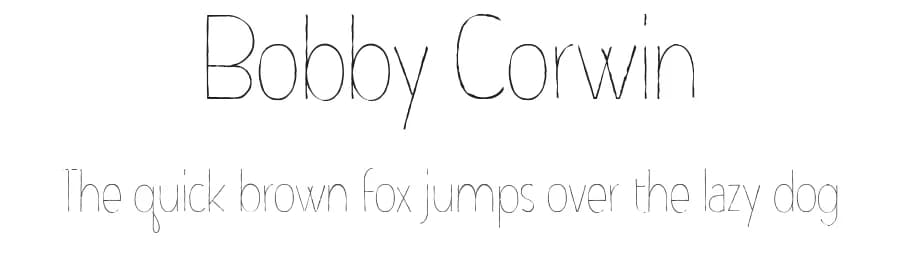
About Bobby Corwin Font
The cutest little freakin' font you will every lay your itty bitty eyes on.
Bobby Corwin was born of love and tenderness. This somewhat light, somewhat handwritten font is tailored to suit the most adorable of projects.
Bobby Corwin contains a full letter and number set, punctuation, and foreign characters, meaning you can be a little darling in whatever language you'd like :)